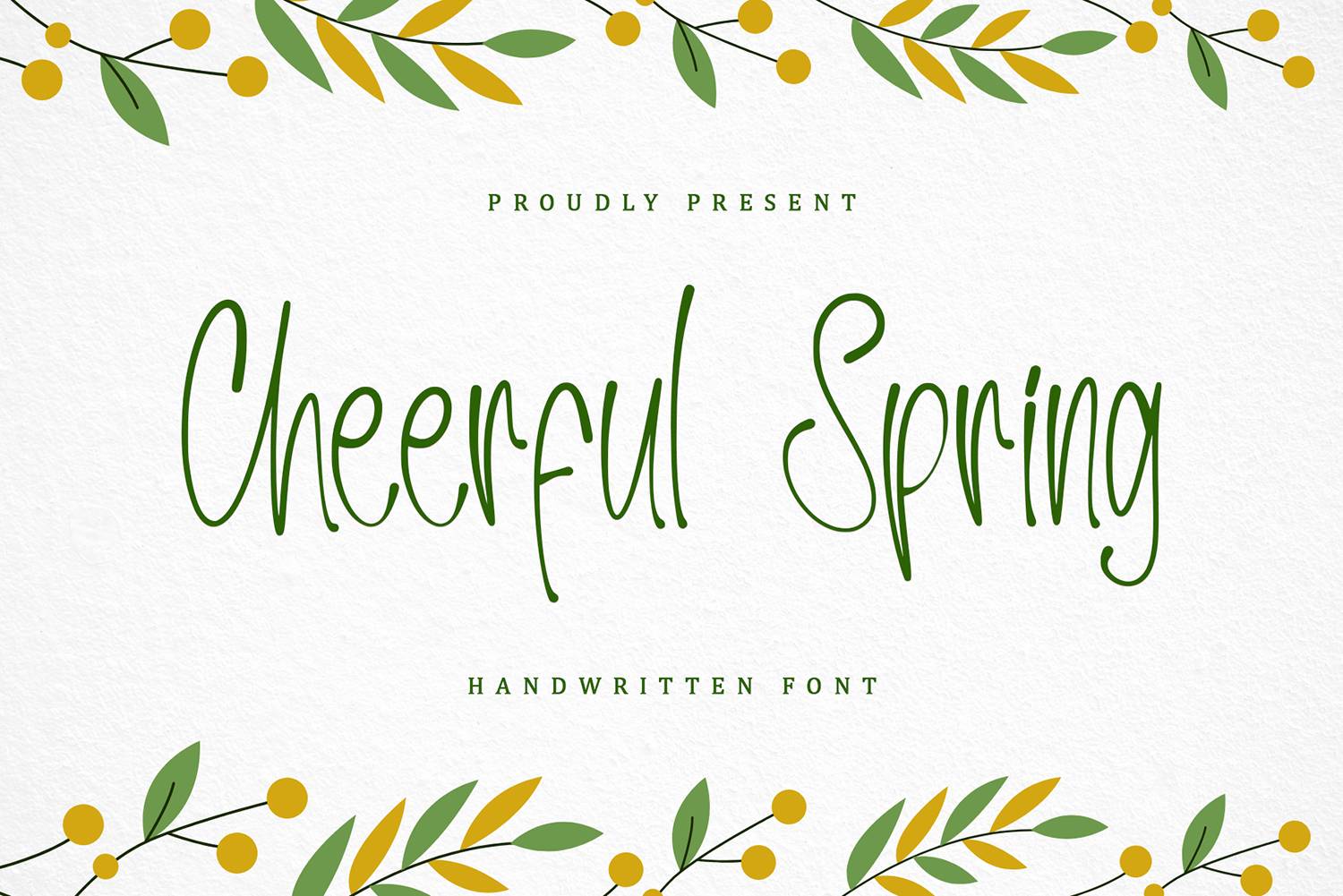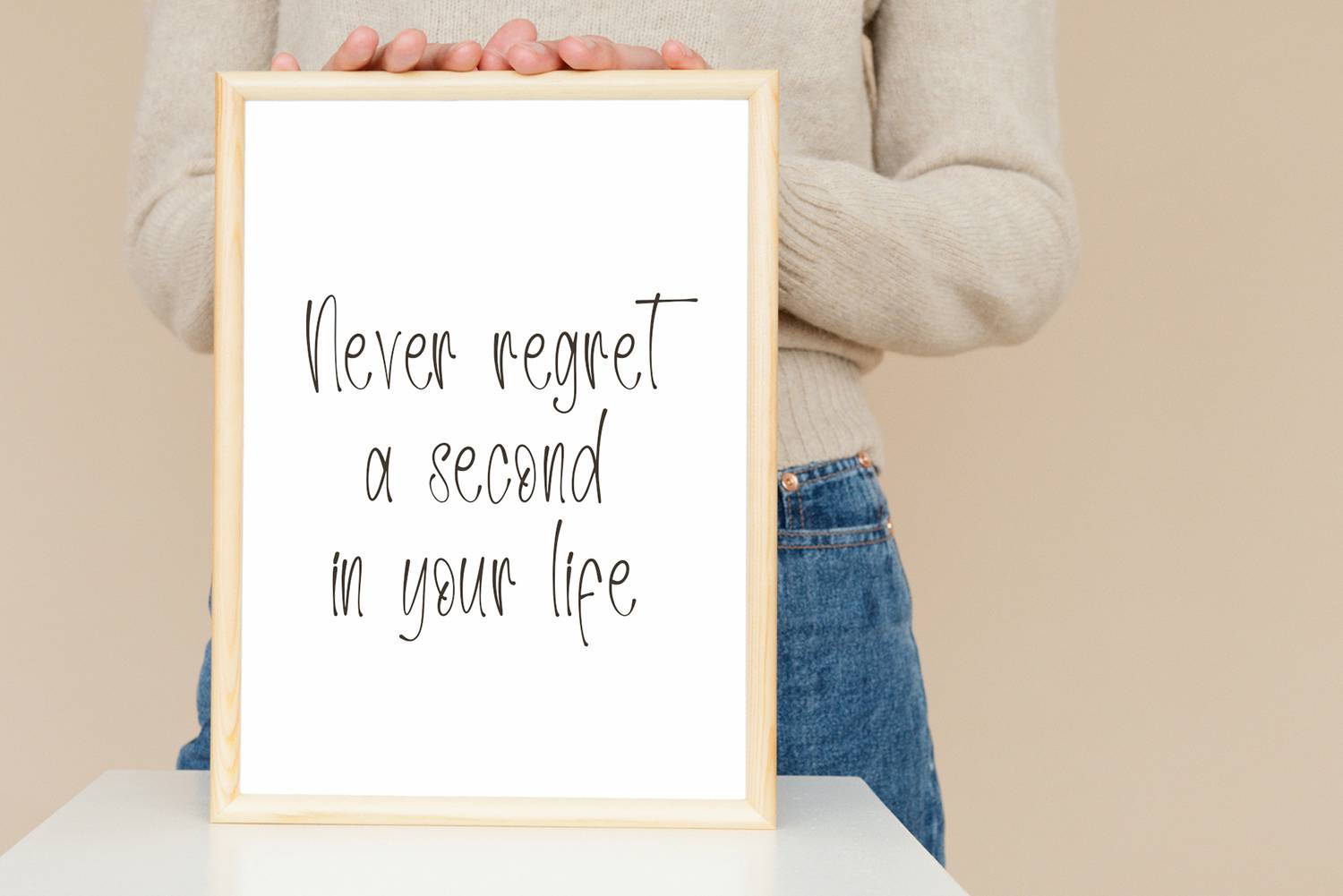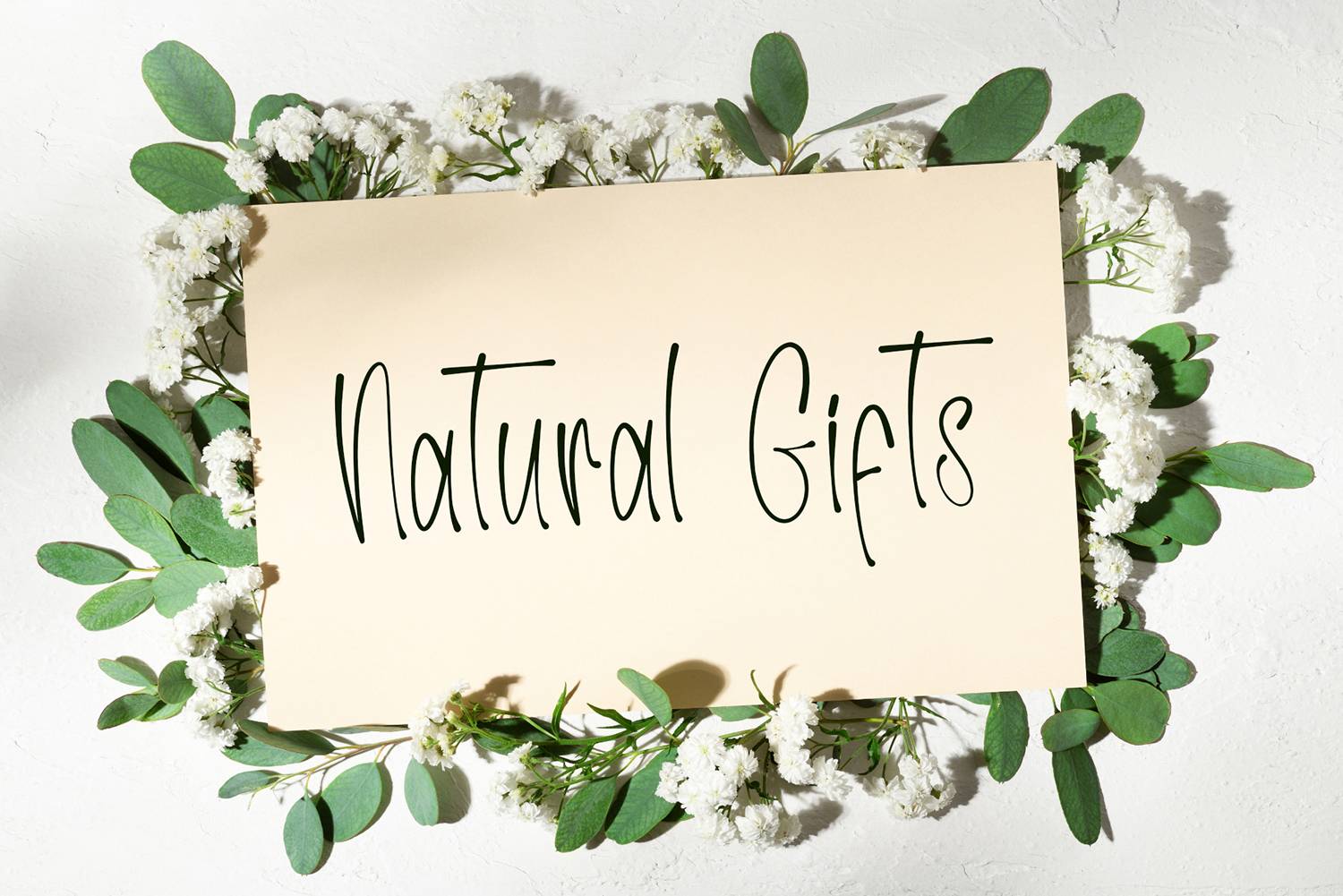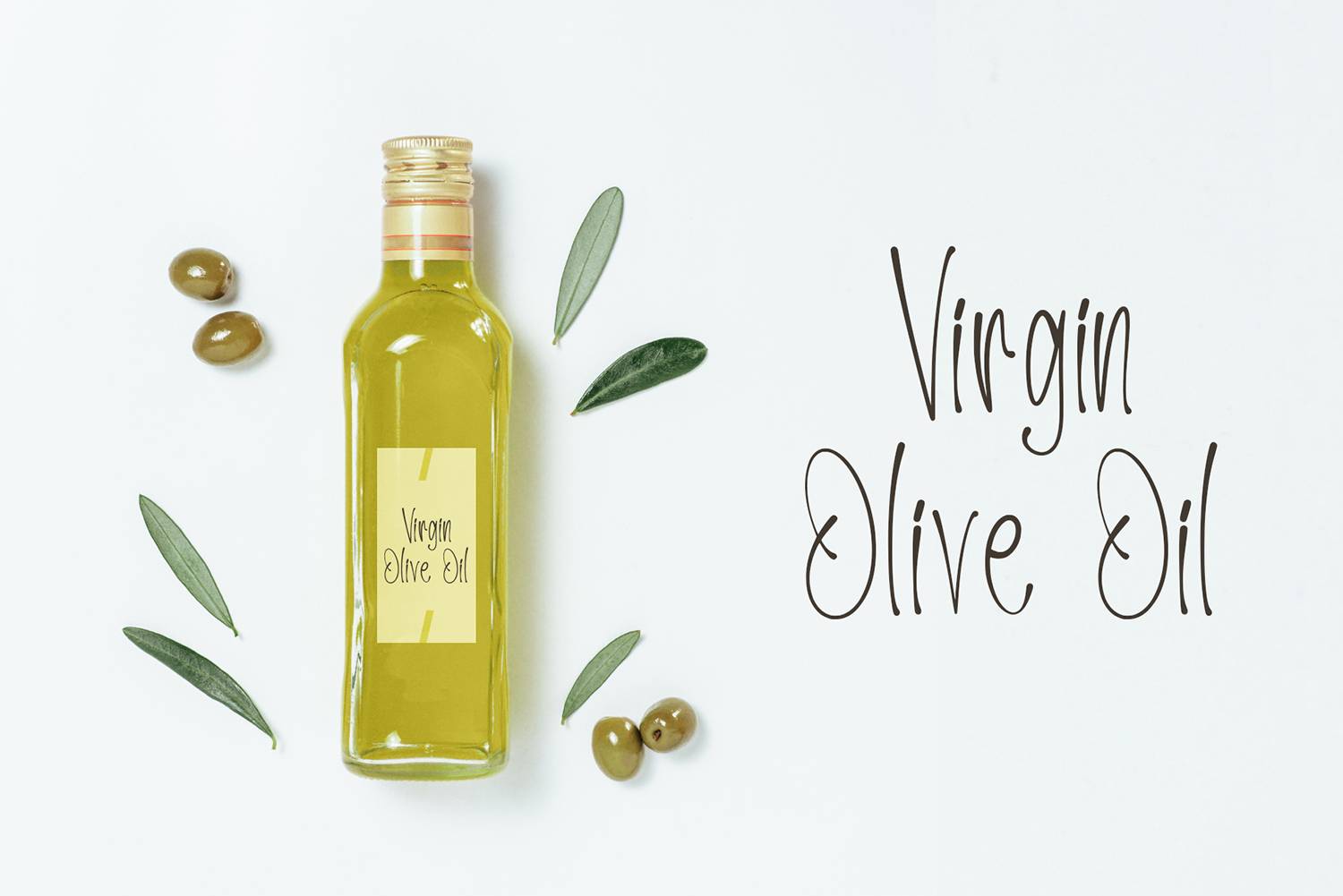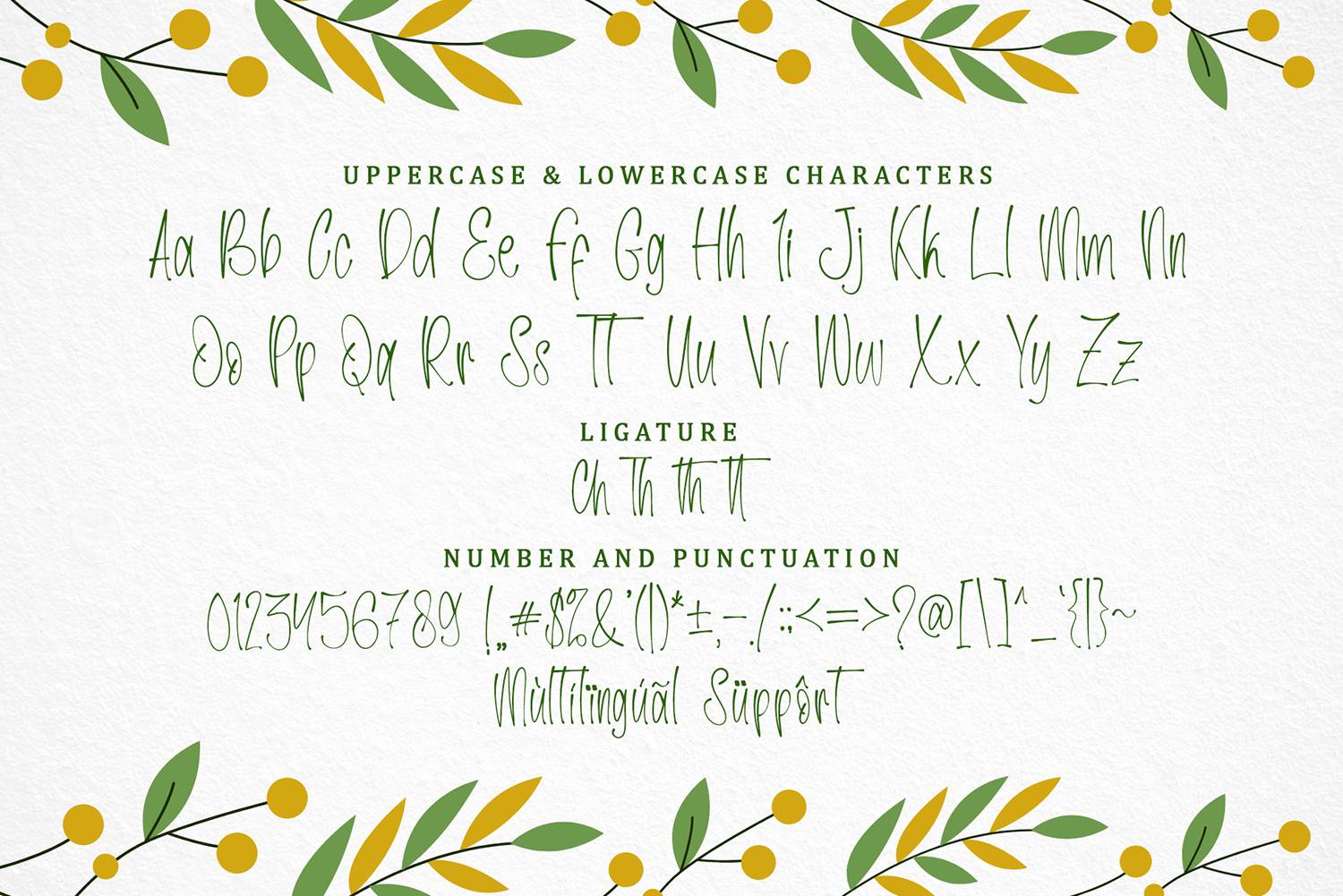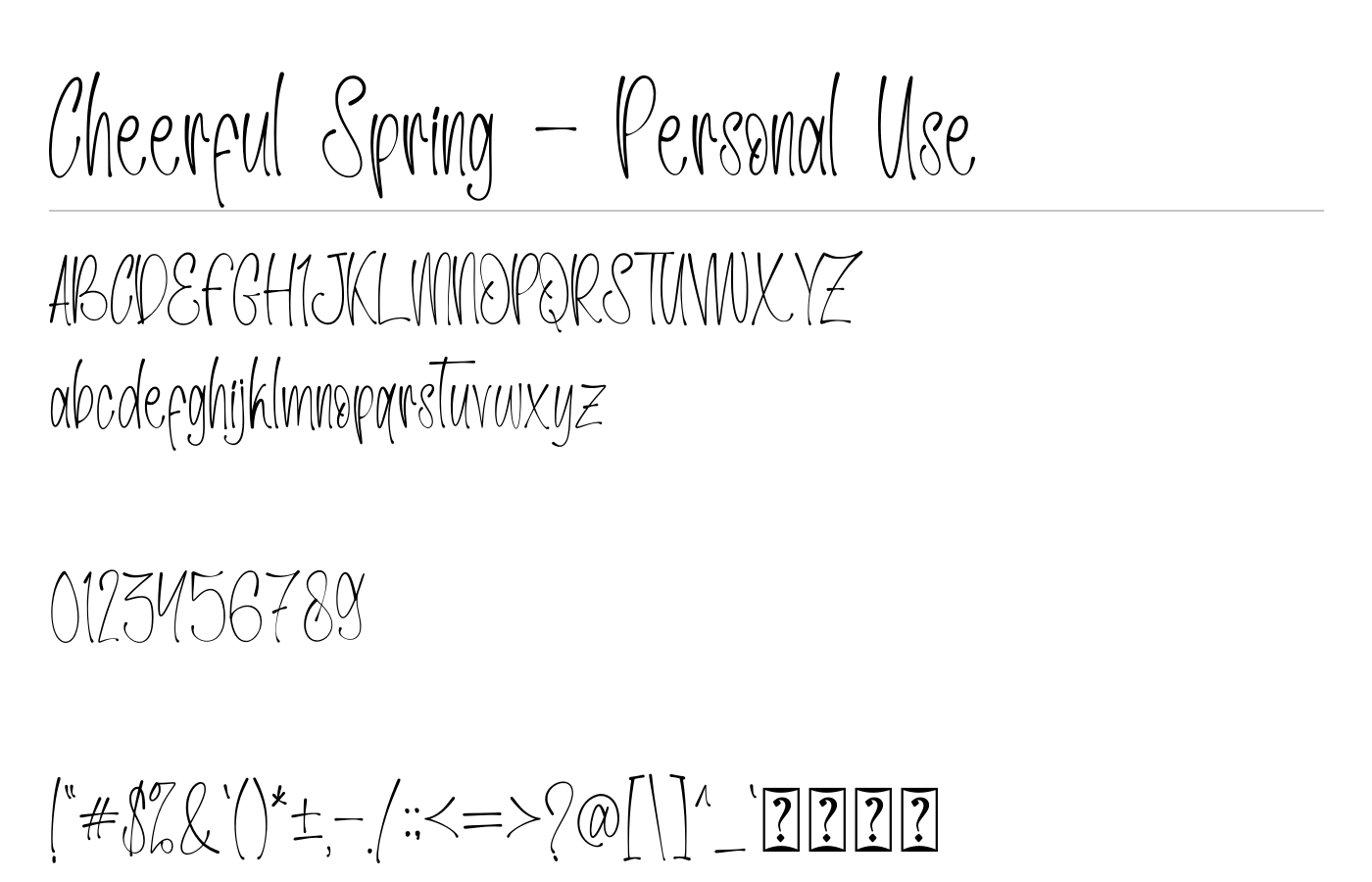
Cheerful Spring is a slender, hand-drawn script font with a playful and casual vibe, featuring tall, narrow letterforms and a lively, slightly irregular stroke style. Its delicate lines and whimsical shapes evoke a lighthearted and friendly feel, making it ideal for informal designs like greeting cards, personal projects, and creative branding that seeks a fresh, approachable look. This font works best in headlines or short text where its unique personality can shine without compromising readability.
Cheerful Spring Font
About Cheerful Spring Font
| Font family | Cheerful Spring Font |